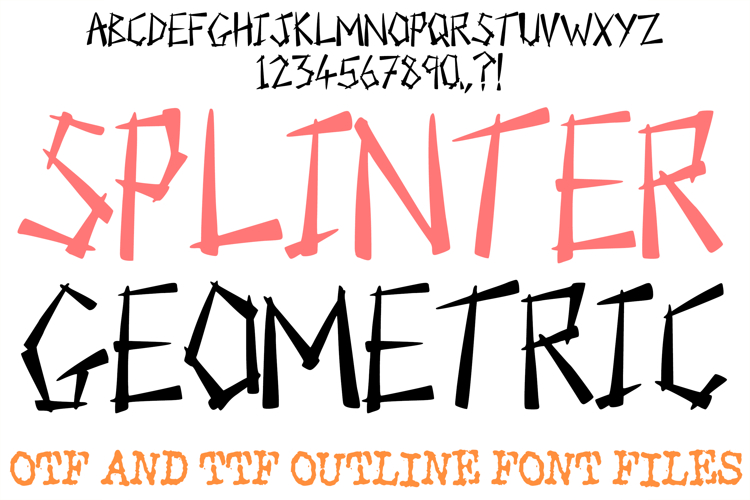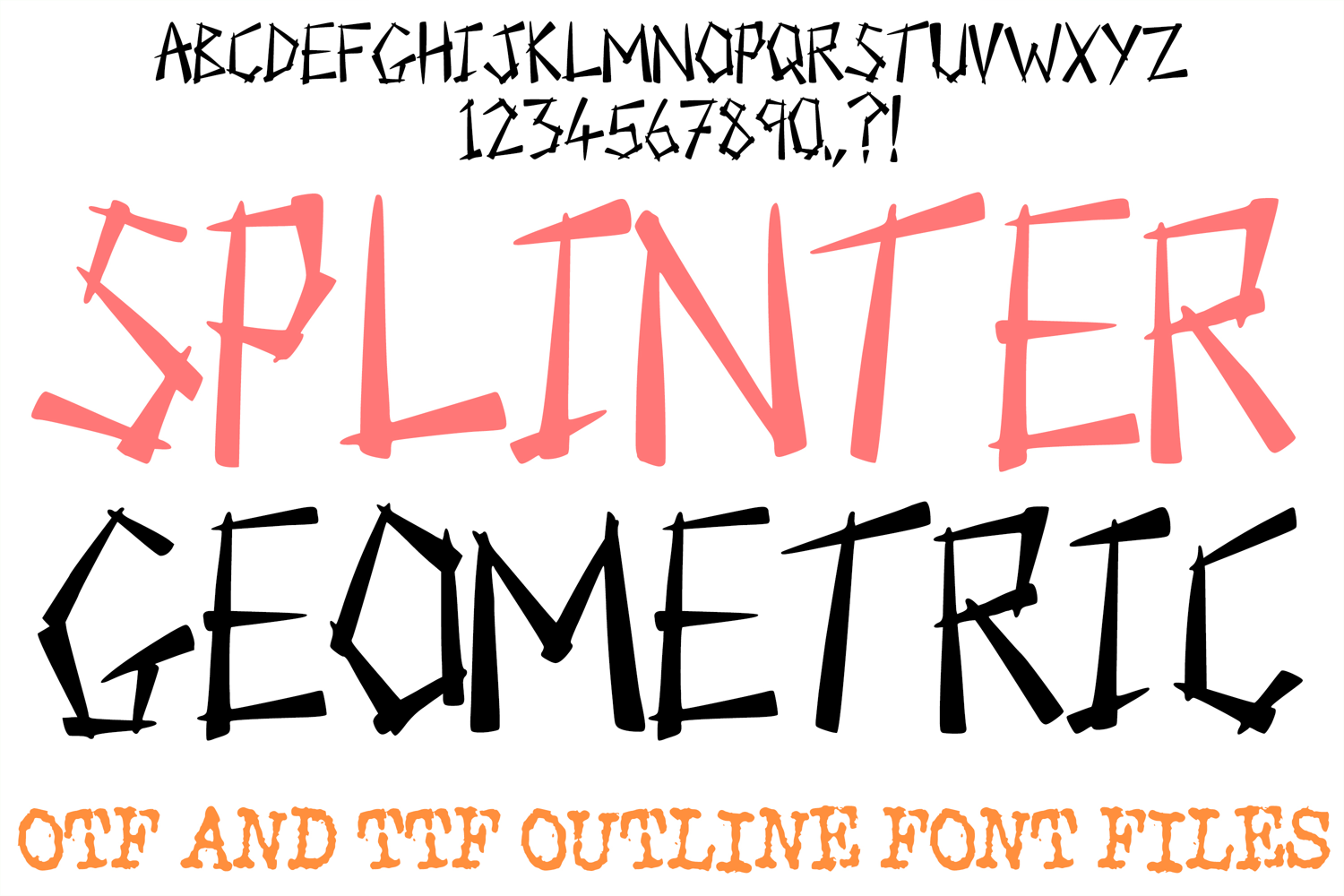
Splinter Geometric Lettering Font Hand Drawn ABC OTF Type
The Splinter Geometric Font is a high-impact display typeface that reimagines the alphabet as a series of sharp, overlapping architectural fragments. Featuring bold, solid strokes and jagged silhouettes, this font is a perfect choice for edgy streetwear branding, alternative music posters, horror-themed graphics, and modern digital art.
Each character is meticulously designed with a raw, artisan feel, blending thick angular lines with narrow intersections to create a sense of fractured movement. Whether you are a designer crafting a contemporary logo or an artist looking for a "slasher-style" hand-drawn aesthetic, the Splinter Geometric Font delivers a sharp, avant-garde look to any creative project.
Why Your Designs Will Stand Out
Aggressive Geometric Aesthetic: Every letter (A–Z) and number (0–9) is built from intersecting solid shards, providing a unique, broken look that standard fonts cannot replicate.
High-Contrast Linework: The variations between thick blocks and sharp points add texture and a sense of hand-drawn urgency to your headlines.
Versatile Alphanumeric Set: Includes a full range of uppercase letters, numbers, and sharp, stylized punctuation like geometric question marks and exclamation points.
Modern & Edgy: The minimalist black-and-white forms make it ideal for architectural overlays, edgy fashion labels, and futuristic branding.